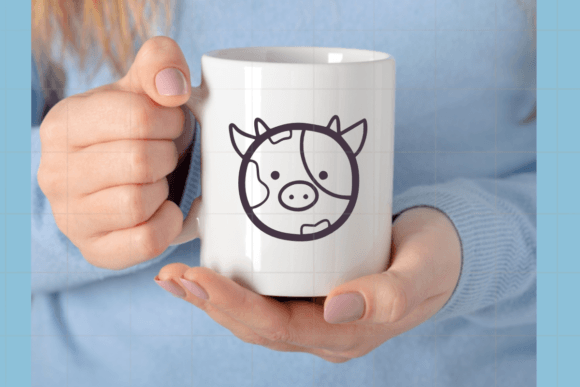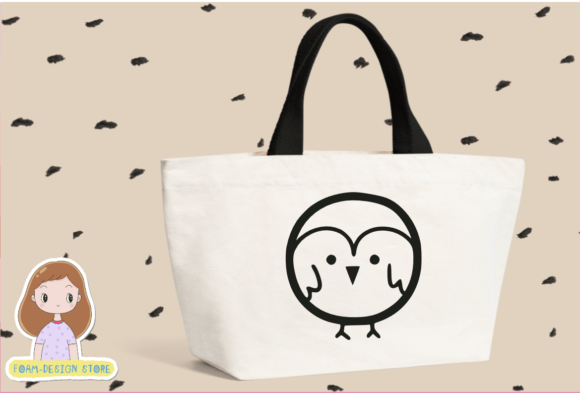
Unleash Your Inner Creativity with the Animals Font
Have you ever stared at a blank page, desperate for inspiration to strike? I know I have. Sometimes, it’s just a matter of adding the right touch to spark our imagination. That’s exactly what the Animals Font can do for you.
This adorable hand-drawn dingbats font is perfect for adding a playful twist to your designs. Whether you’re a planner enthusiast, a crafter, or a digital designer, the Animals Font is a valuable addition to your creative toolkit. Its cute and whimsical characters can elevate your presentations, worksheets, greeting cards, and more, making them truly stand out.
By incorporating the Animals Font into your projects, you can add a personal touch that sets them apart from the rest. So, why not give it a try and see the magic happen?
- Unique Characteristic: The font features a unique blend of hand-drawn and digital elements, resulting in a distinctive and eye-catching design.
Designer Review: Animals Font
The Animals Font is a quirky, hand-drawn typeface that adds a playful touch to any design. I love how it captures the whimsy of the animal kingdom, making it perfect for projects that require a lighthearted and approachable tone. ✨ The font’s unique letterforms and flourishes add a touch of personality to text, making it stand out from more generic sans-serif fonts.
One of the biggest strengths of the Animals Font is its versatility. It works well for a wide range of projects, from children’s book illustrations to marketing materials for pet stores. ✨ The font also comes in a range of weights and styles, making it easy to adjust the tone and atmosphere of your design.
While the Animals Font is a great addition to any designer’s toolkit, there are a few limitations to be aware of. ⚠️ One of the biggest issues is the font’s limited legibility at small font sizes. This can make it difficult to use in situations where clear, concise text is essential. Additionally, the font’s hand-drawn feel can sometimes make it difficult to read for those with dyslexia or other visual processing difficulties.
- Font is not suitable for use in situations where clear, concise text is essential.
- May not be legible for individuals with dyslexia or other visual processing difficulties.
Overall, I think the Animals Font is a great addition to any designer’s toolkit. While it may have a few limitations, its unique personality and versatility make it a great choice for projects that require a lighthearted and approachable tone.
Use the Animals Font to add a playful and whimsical touch to your designs. Experiment with different font styles and sizes to create a unique look. Combine the Animals Font with other design elements, such as images and graphics, to create a visually appealing design.
The Animals Font is perfect for children’s books, educational materials, and websites targeting a younger audience. It can also be used in marketing materials, such as brochures and flyers, to add a fun and engaging touch.